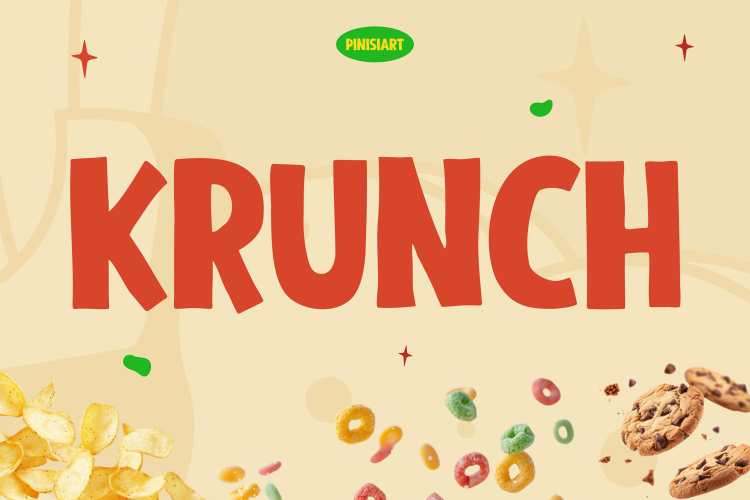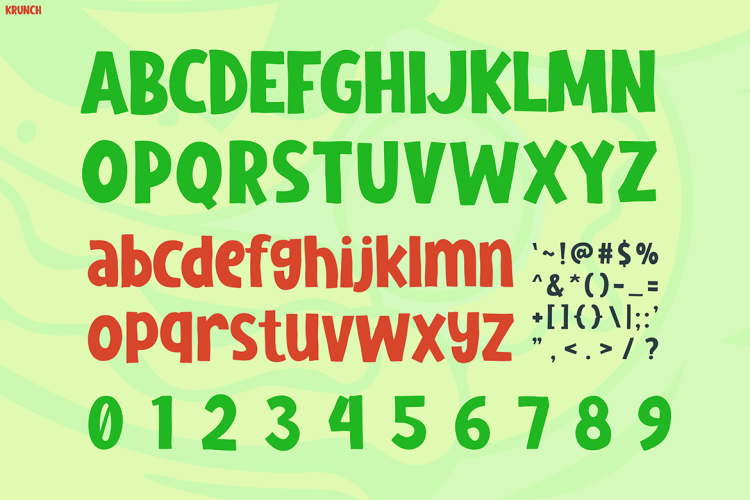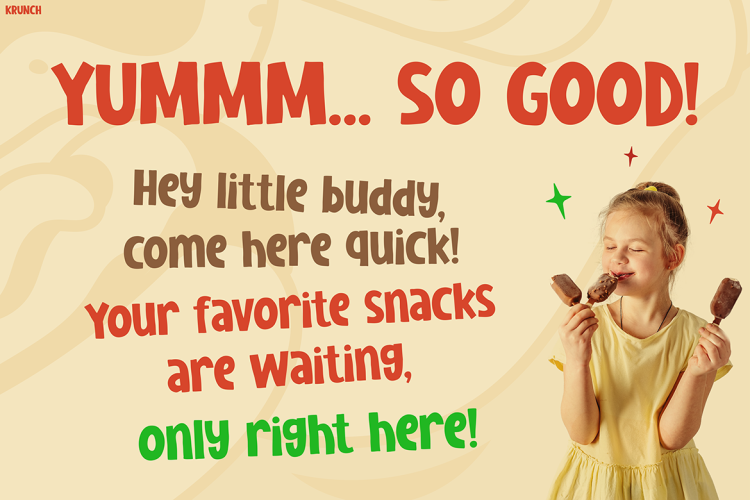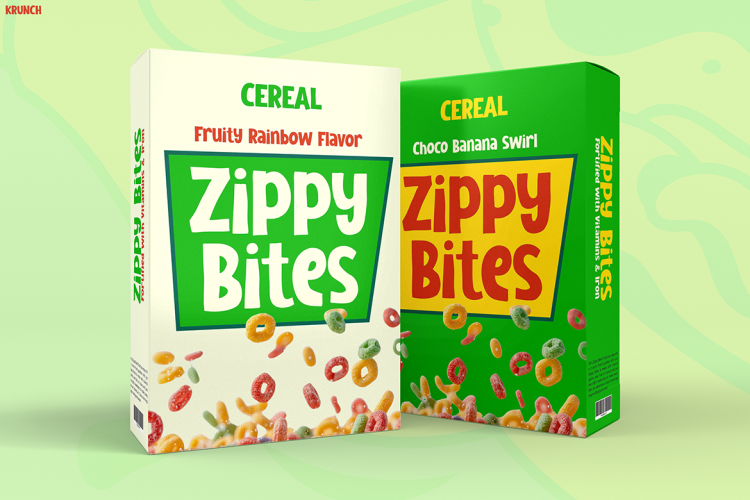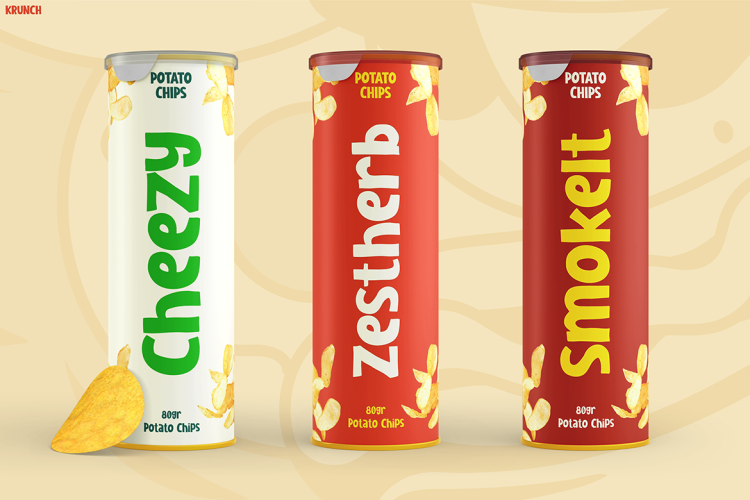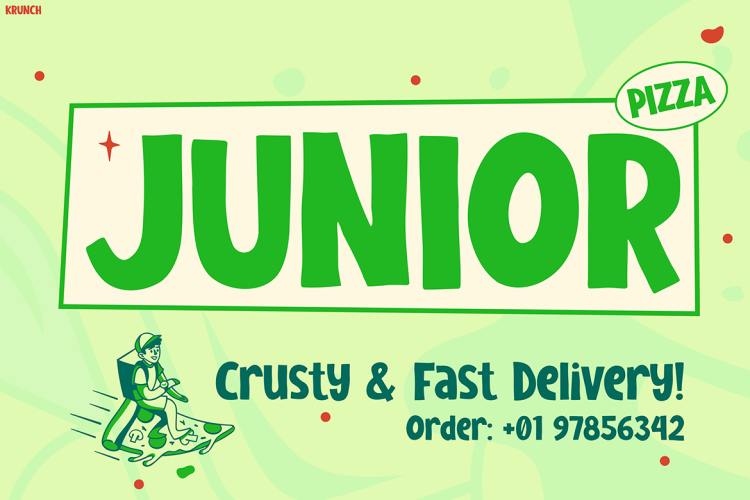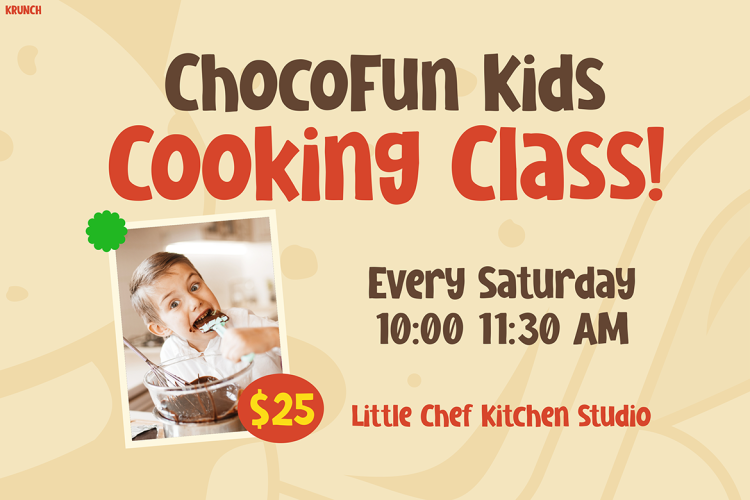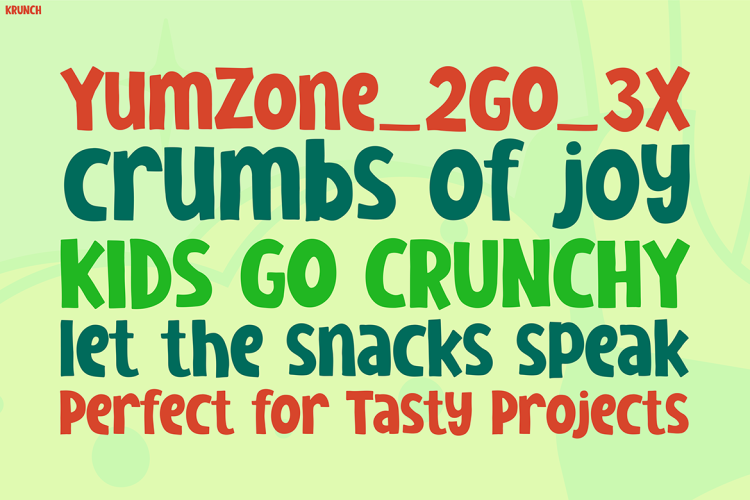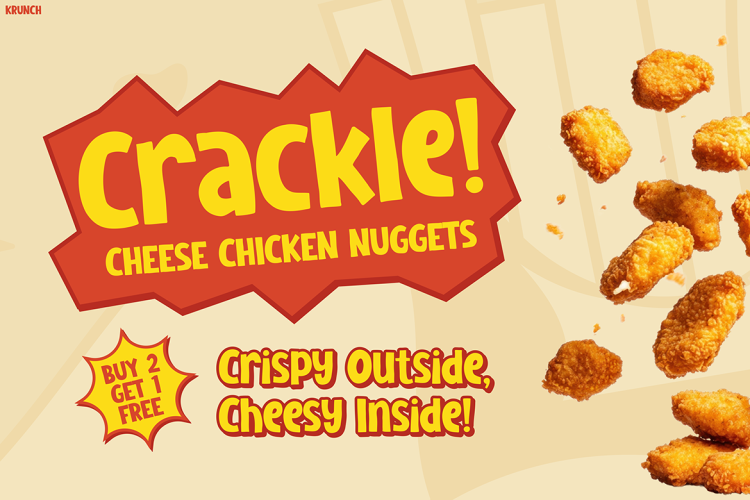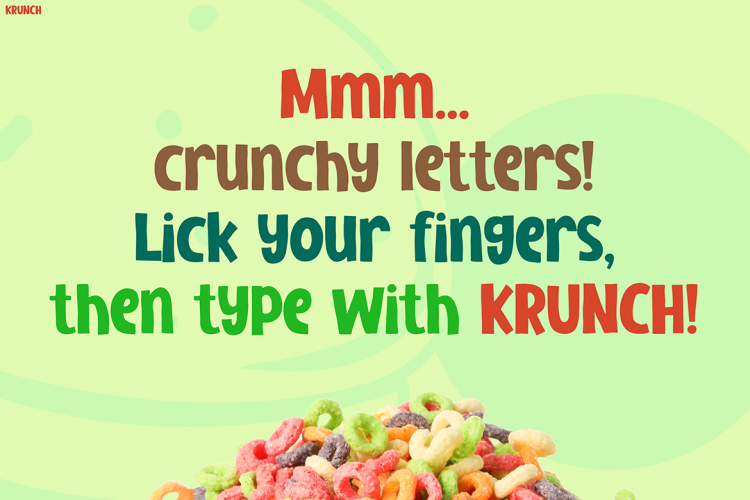
Kids Font KRUNCH โ Bold, Fun, and Full of Flavor!
Kids Font KRUNCH is a cheerful and crunchy display font that immediately pops with personality! Its chunky letterforms and playful curves make it irresistibly eye-catching, especially for food-themed content or child-focused branding. What makes this font truly unique is its bold presence paired with a fun, snack-inspired aestheticโperfectly capturing the excitement and joy of childhood snacks and activities. Whether youโre designing for cereal boxes, cooking classes, snack labels, or kids’ promotions, this font brings a deliciously fun vibe to any project.
The visuals of Kids Font KRUNCH show exactly why it stands out. From the bold “KRUNCH” title in crisp, bite-sized letters to its highly legible alphabet set (uppercase, lowercase, numbers, and punctuation), the font is crafted to grab attention while staying readable. The aesthetic is lighthearted and full of joyโideal for brands or creators that want to express youthful energy, crunchy textures, and snack-time excitement. It feels both fresh and nostalgic, reminiscent of weekend cartoons, lunchbox treats, and after-school fun.
Perfect For:
Snack and Cereal Packaging: Like the โZippy Bites,โ โCrackle!,โ or โJunior Pizzaโ samples, this font amplifies appetite appeal while being easy for kids to recognize and remember.
Kids Menus or Promotions: The โYUMMMMโฆ SO GOOD!โ and โCrumbs of Joyโ designs show how the font adds flavor to any childrenโs food promotion.
Children’s Cooking Events: The โChocoFun Cooking Classโ sample proves this font fits perfectly in activity flyers or school programs.
Edutainment & Toys: With its clear and charming forms, itโs also ideal for toy branding, apps, or educational materials.
Digital Content: Use it for YouTube thumbnails, kids’ blogs, or Instagram promos to instantly make your content pop.
Get a Taste of Fun Typography!
If youโre searching for a font that looks good enough to eat, Kids Font KRUNCH is the perfect pick. Itโs not just cuteโitโs functional, expressive, and full of creative energy. Your designs will stand out, your branding will feel more lively, and your young audience will love it.